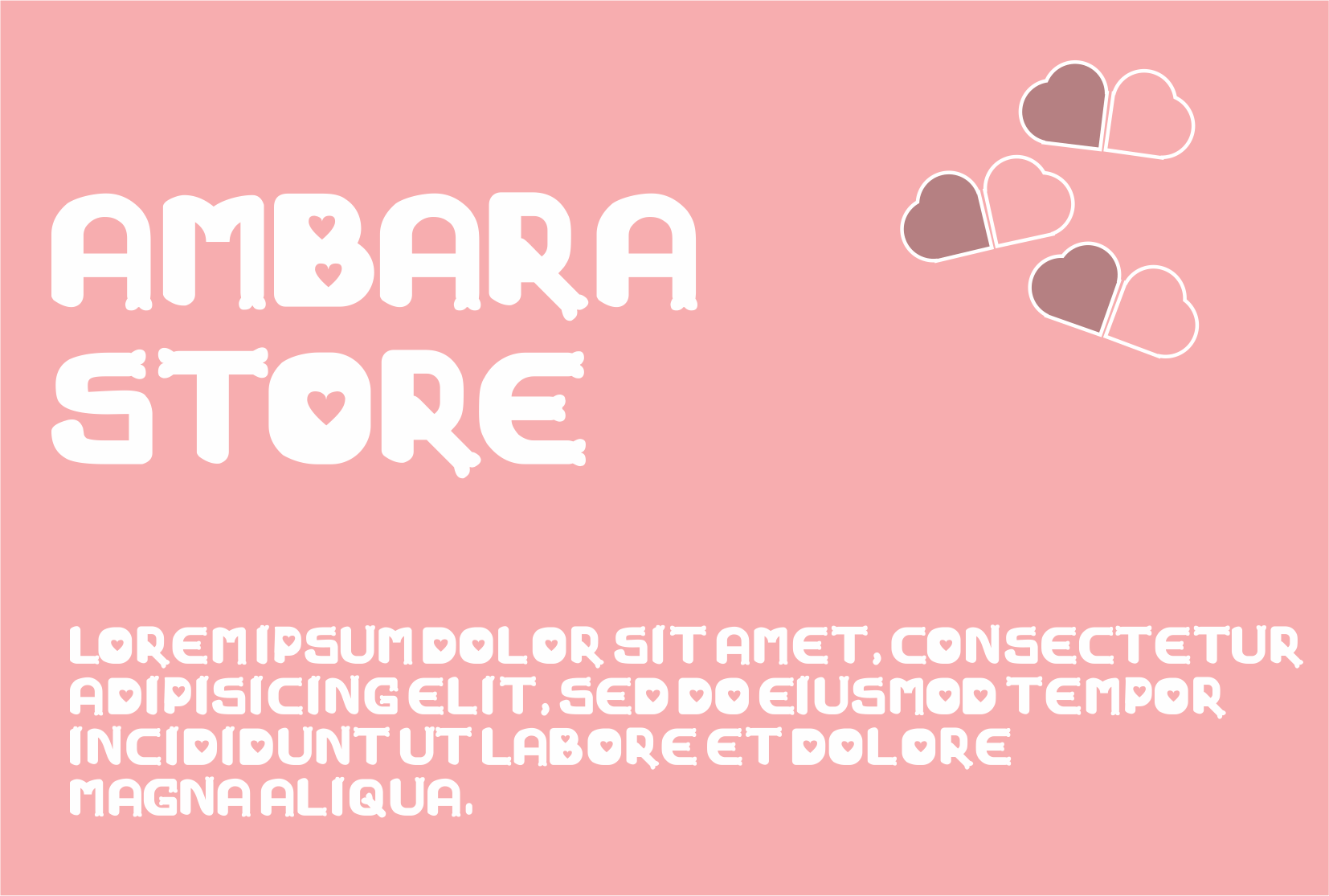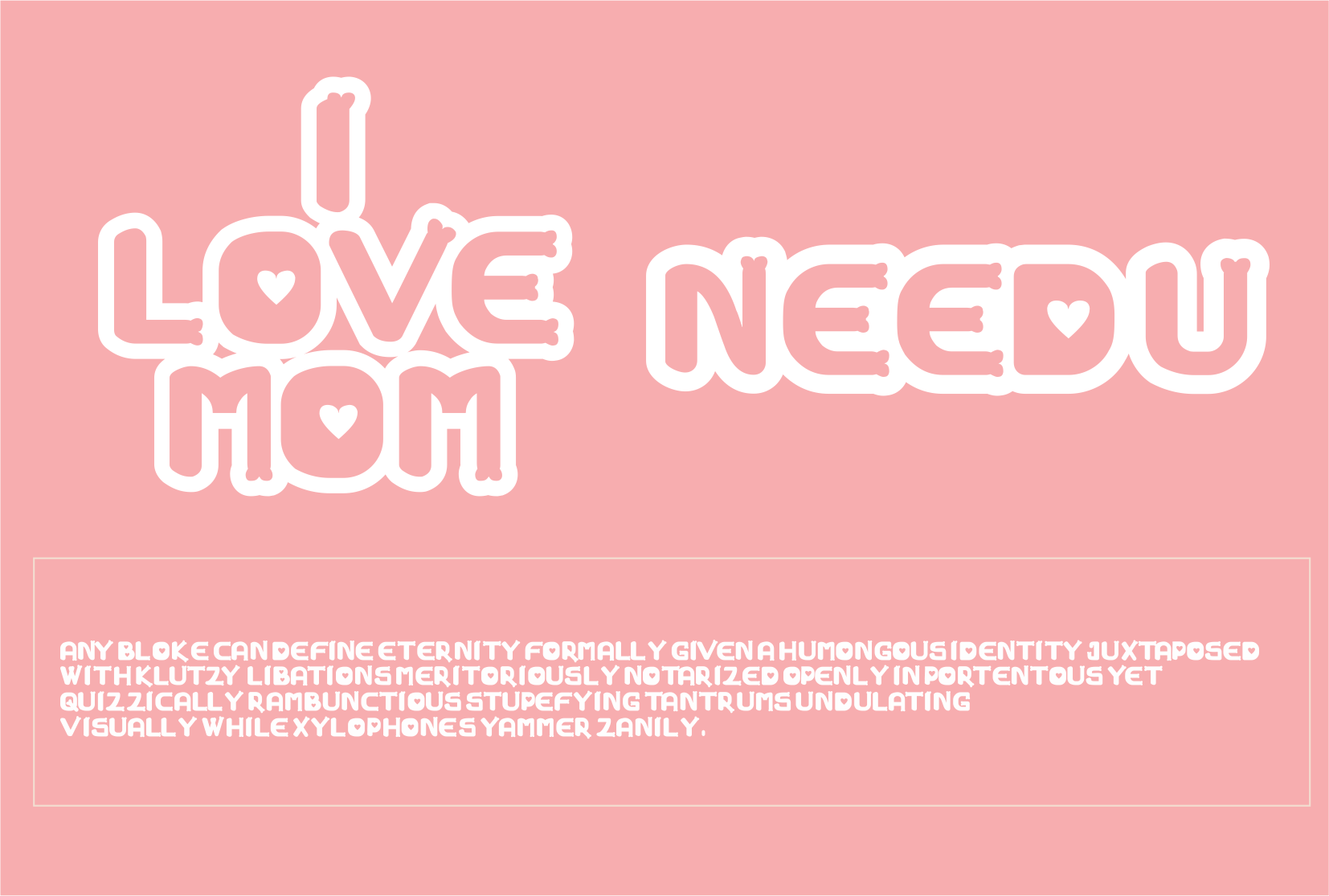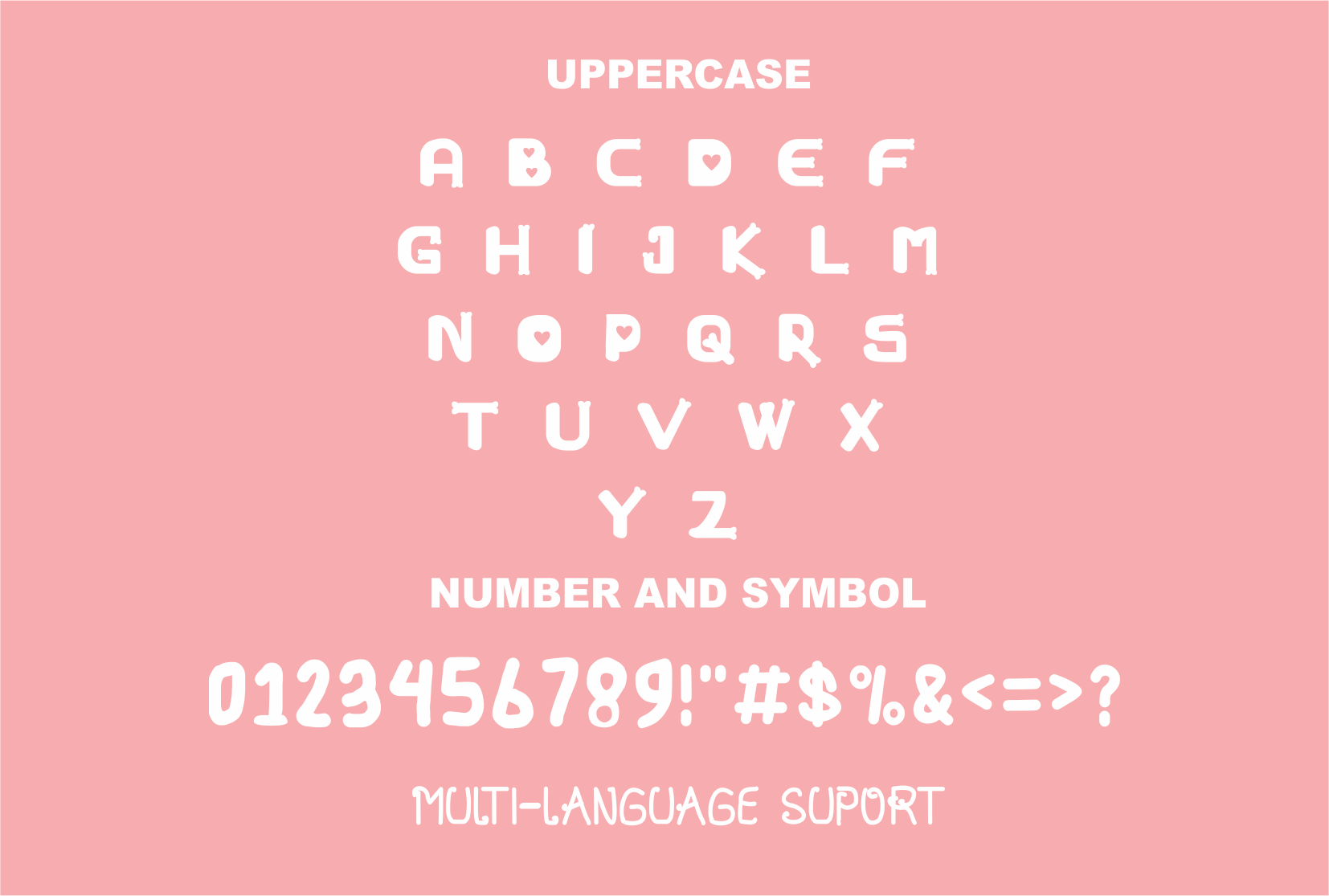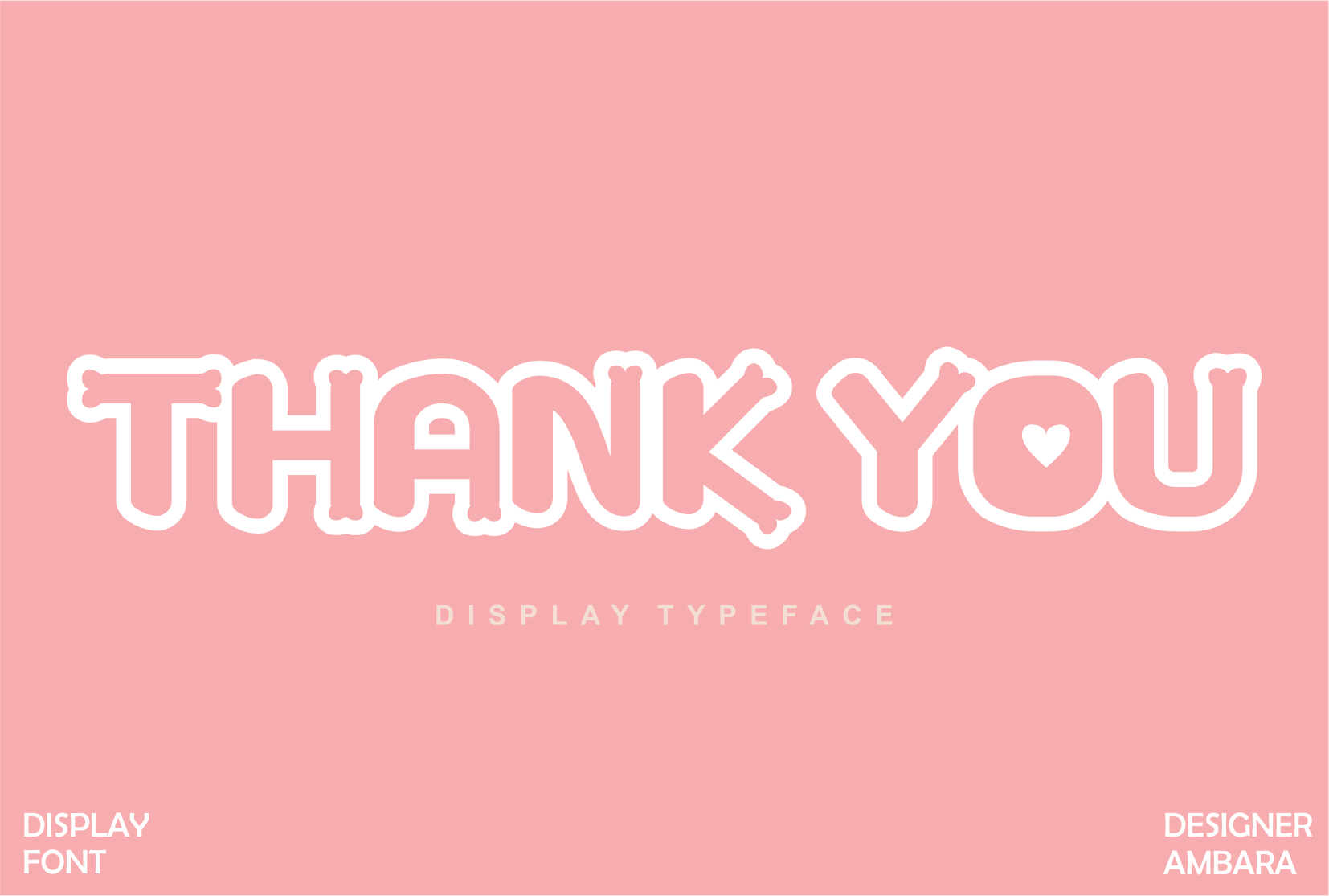
Cute Love Display Font
It’s a thick-lettered and cool display font. Simple but strong, this font will instantly make your creations more appealing than any others! Add it to any of your designs, and watch how they capture everyone’s attention!